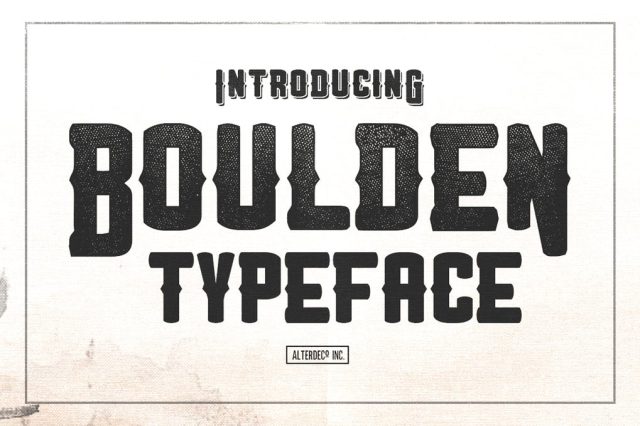
Boulden Typeface
Boulden is bold! all caps! perfect for your propaganda poster, or even a modern yet vintage graphic design. its available in 3 different styles that you can play with, regular clean, grunge, & shadow style.